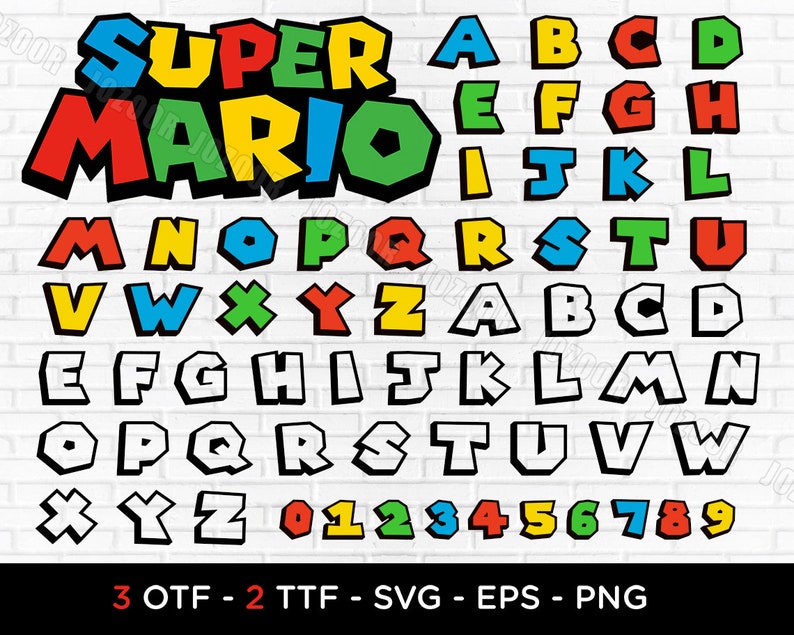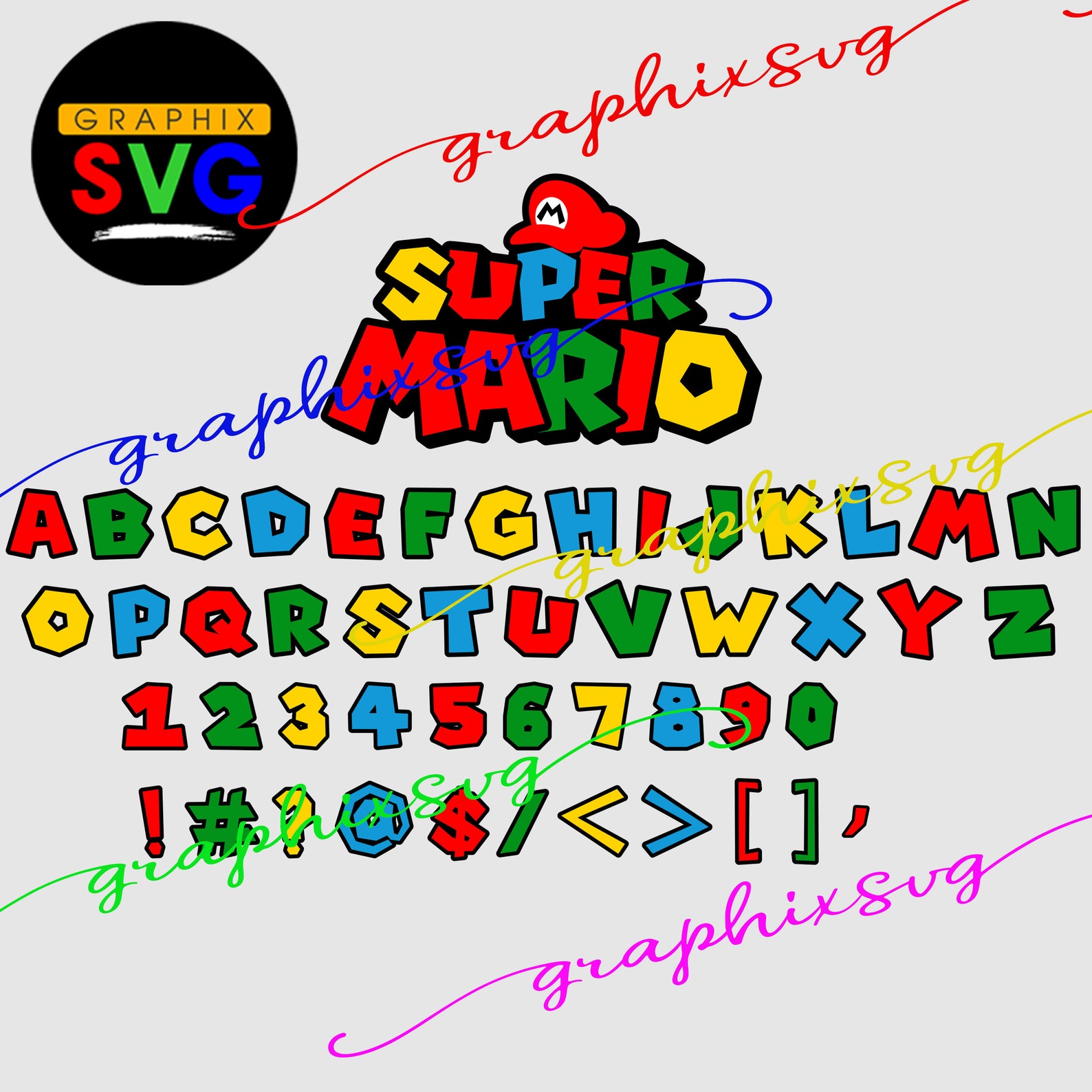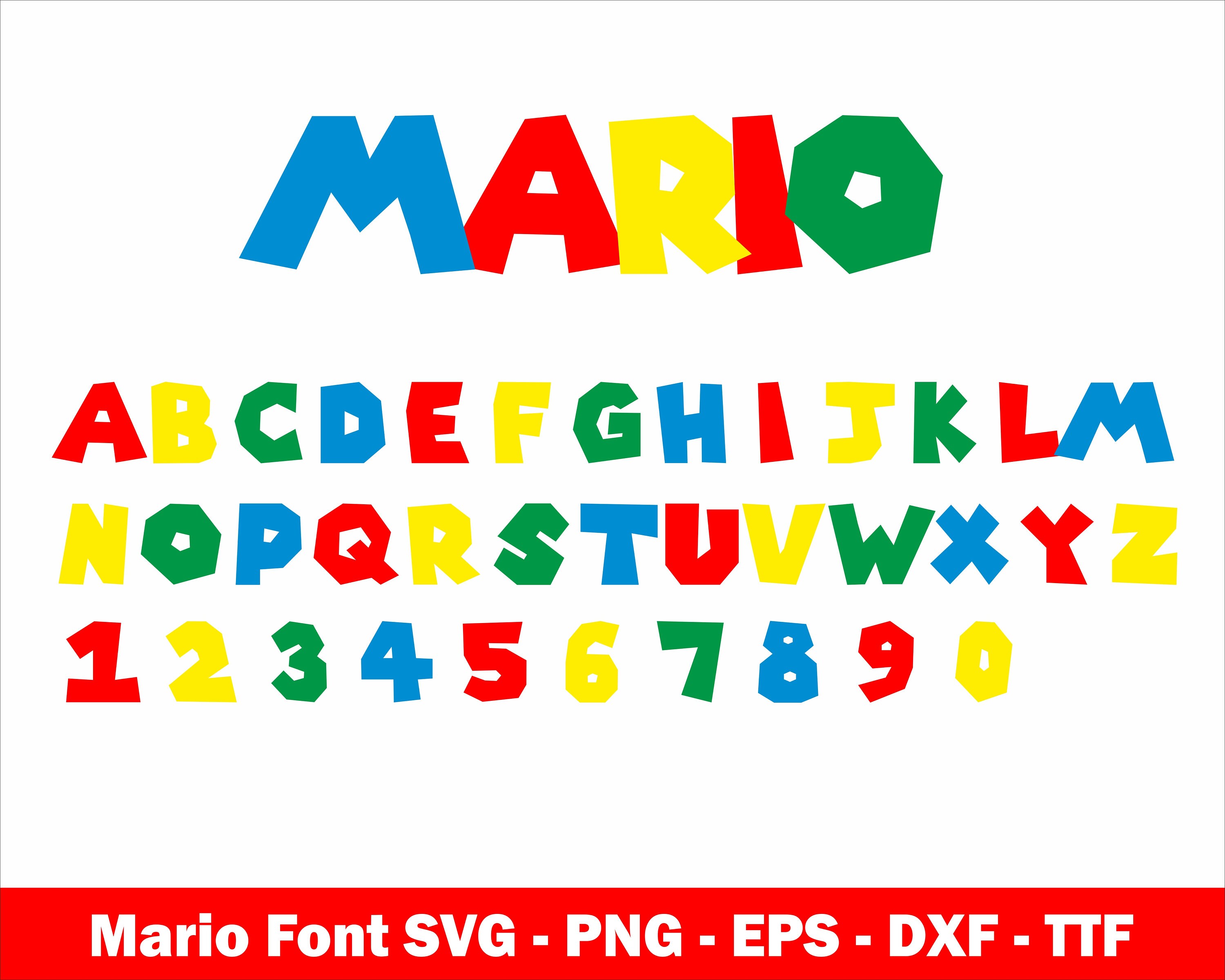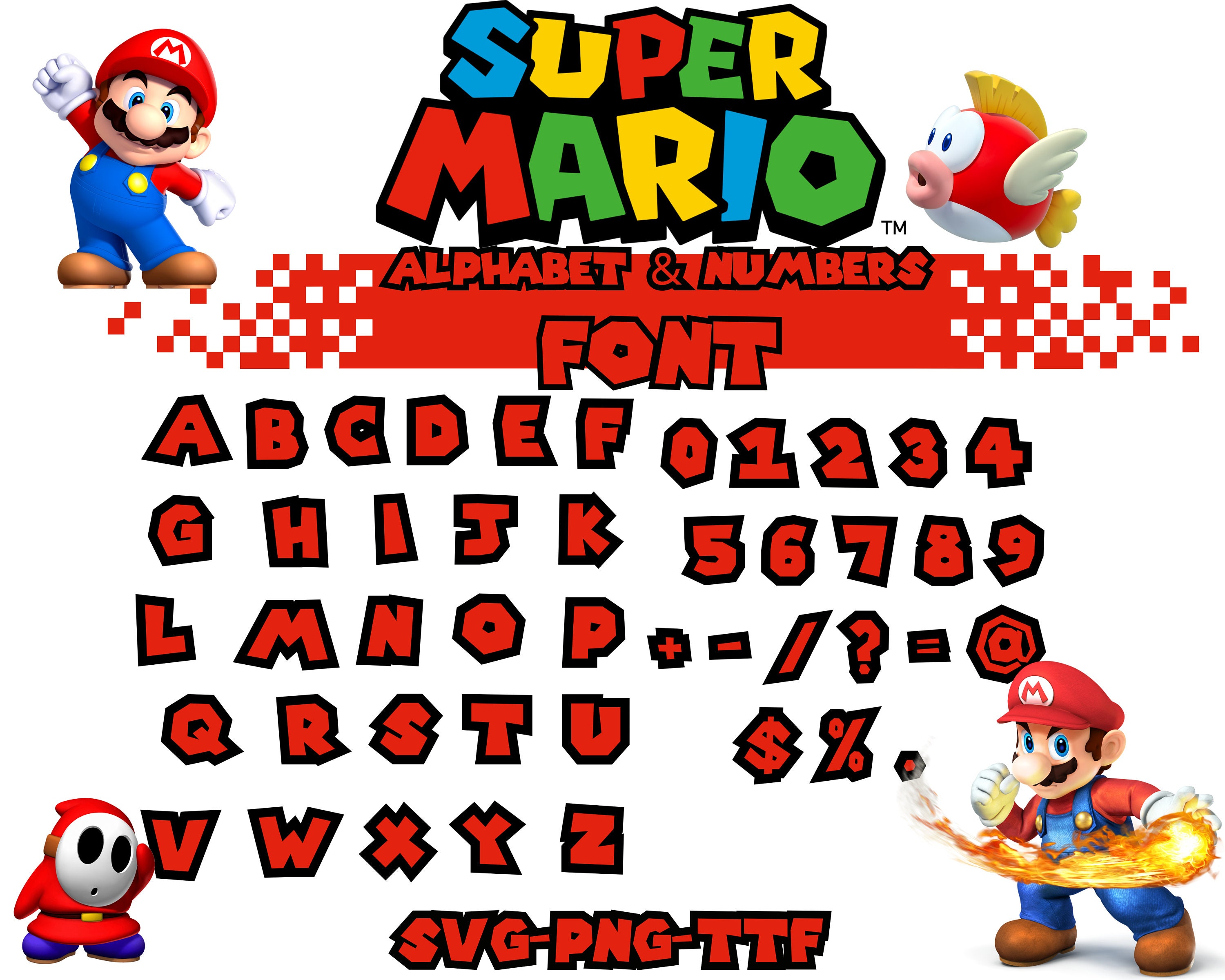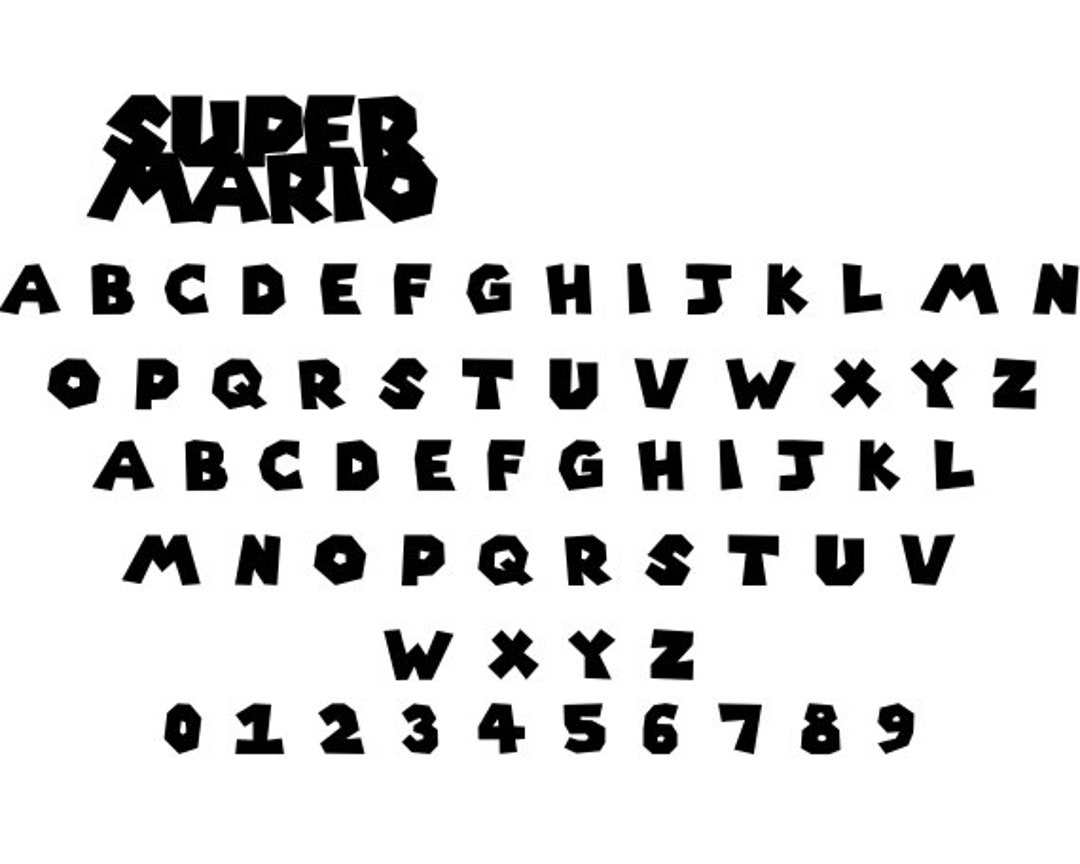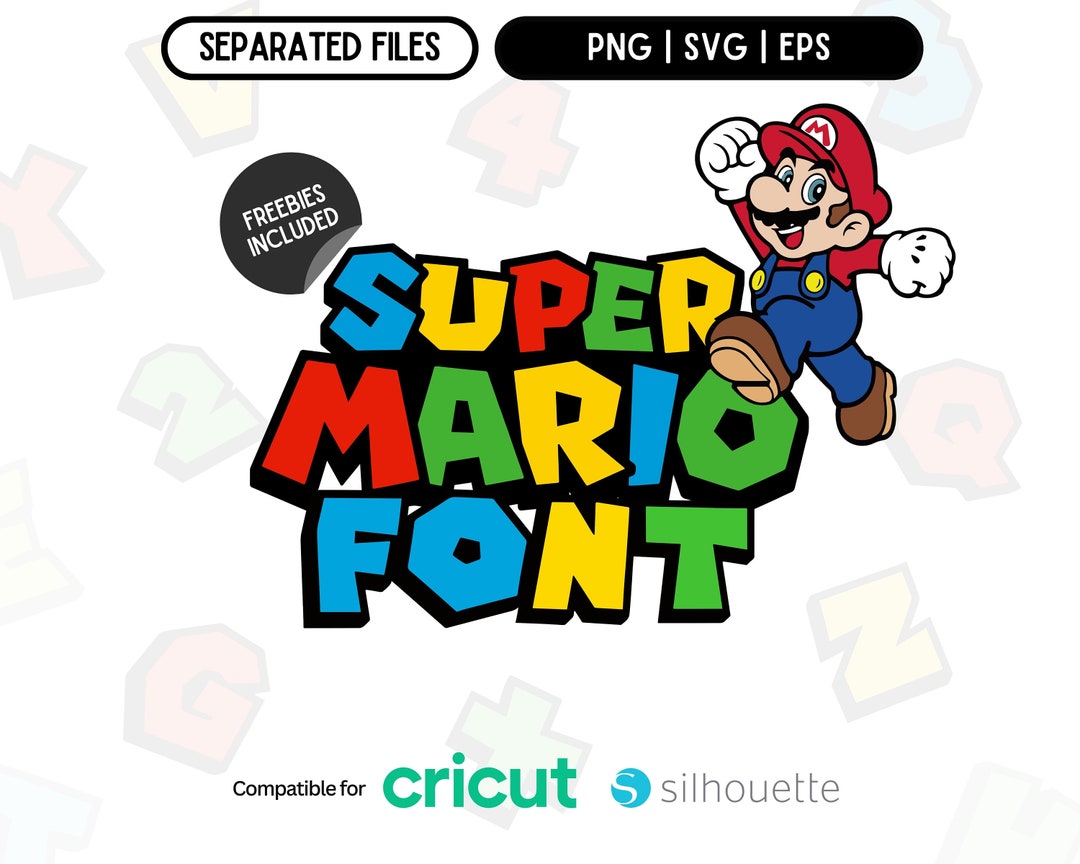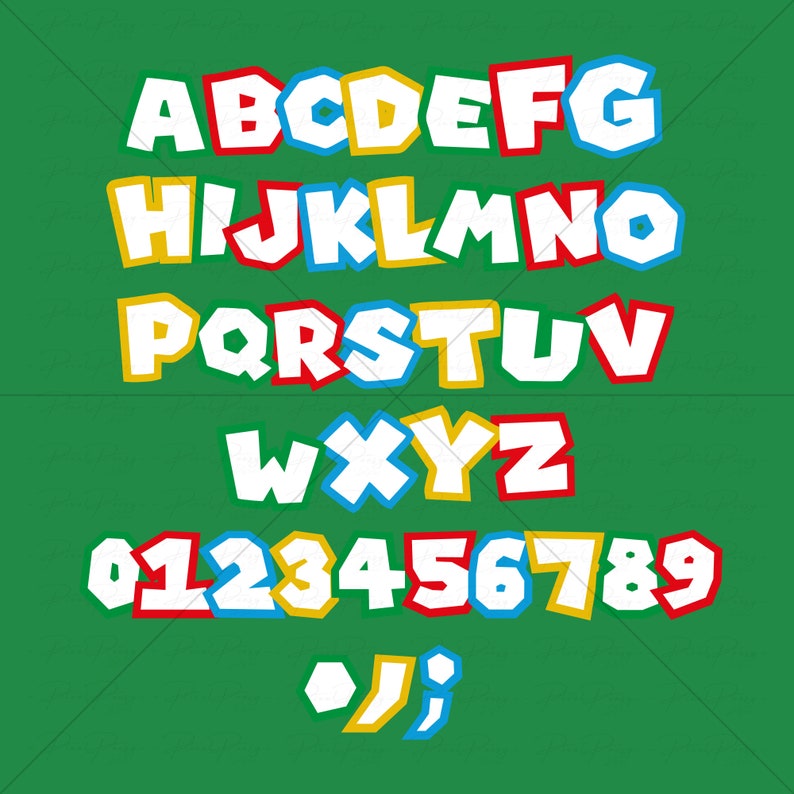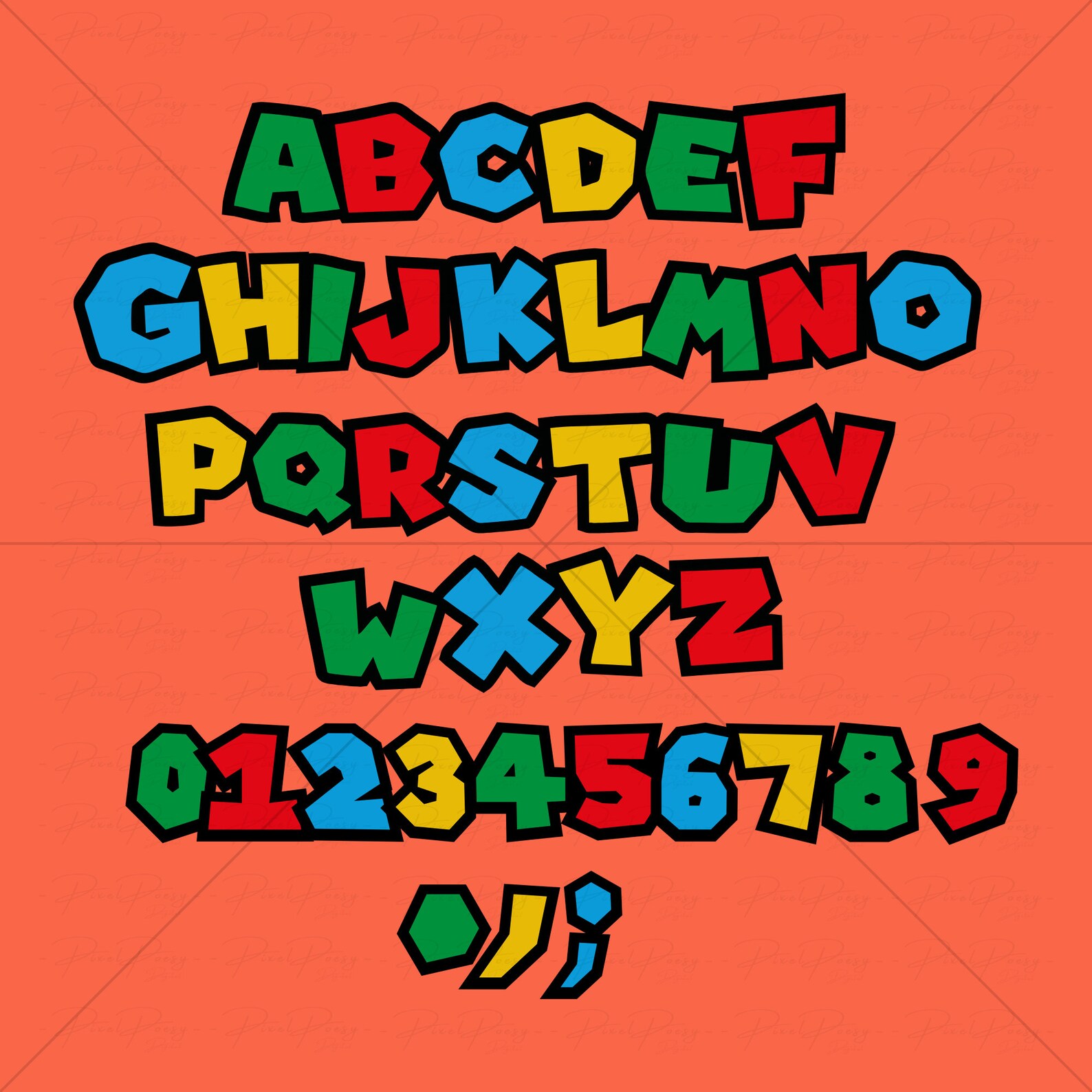
What Is The Mario Font Called . The font in its current form was officially introduced with the release of super mario 3d land in 2011 and has since become the. You can download the font for free Super mario 256 by fsuarez913. It is a caps only font with numerals and limited punctuation marks. This file is found in mario tennis: 3,618,207 downloads (1,058 yesterday) 52 comments 100% free. The ui (time and score) and logo font in most super mario series. These include the super mario 256 font which is used in the logo of super mario. Mario world, the font file is. Ultra smash, and again is used in super mario run. The lettering for the super mario logo is very similar to a font named super mario 256 by fsuarez913. A typeface of unknown name, found in most modern mario games. My first font, almost an.
It is a caps only font with numerals and limited punctuation marks. The ui (time and score) and logo font in most super mario series. My first font, almost an. Super mario 256 by fsuarez913. These include the super mario 256 font which is used in the logo of super mario. The font in its current form was officially introduced with the release of super mario 3d land in 2011 and has since become the. This file is found in mario tennis: You can download the font for free The lettering for the super mario logo is very similar to a font named super mario 256 by fsuarez913. Ultra smash, and again is used in super mario run.
What Is The Mario Font Called Ultra smash, and again is used in super mario run. You can download the font for free A typeface of unknown name, found in most modern mario games. Ultra smash, and again is used in super mario run. These include the super mario 256 font which is used in the logo of super mario. Mario world, the font file is. My first font, almost an. The lettering for the super mario logo is very similar to a font named super mario 256 by fsuarez913. The font in its current form was officially introduced with the release of super mario 3d land in 2011 and has since become the. This file is found in mario tennis: It is a caps only font with numerals and limited punctuation marks. 3,618,207 downloads (1,058 yesterday) 52 comments 100% free. The ui (time and score) and logo font in most super mario series. Super mario 256 by fsuarez913.
Mario Font Svg Mario Alphabet SVG Mario Svg Png Eps TTF Font Etsy Canada What Is The Mario Font Called The ui (time and score) and logo font in most super mario series. My first font, almost an. These include the super mario 256 font which is used in the logo of super mario. A typeface of unknown name, found in most modern mario games. The lettering for the super mario logo is very similar to a font named super. What Is The Mario Font Called.
Mario Font, Mario Letters, Mario numbers, Mario Inspire What Is The Mario Font Called The font in its current form was officially introduced with the release of super mario 3d land in 2011 and has since become the. Ultra smash, and again is used in super mario run. Mario world, the font file is. The ui (time and score) and logo font in most super mario series. You can download the font for free. What Is The Mario Font Called.
Mario Free, Mario Bros., Mario Party, Super Mario, School Year Themes What Is The Mario Font Called It is a caps only font with numerals and limited punctuation marks. These include the super mario 256 font which is used in the logo of super mario. Ultra smash, and again is used in super mario run. Super mario 256 by fsuarez913. 3,618,207 downloads (1,058 yesterday) 52 comments 100% free. The font in its current form was officially introduced. What Is The Mario Font Called.
Super Mario Font Fonts Hut What Is The Mario Font Called Ultra smash, and again is used in super mario run. You can download the font for free Super mario 256 by fsuarez913. The font in its current form was officially introduced with the release of super mario 3d land in 2011 and has since become the. The lettering for the super mario logo is very similar to a font named. What Is The Mario Font Called.
Super Mario free Font What Font Is What Is The Mario Font Called 3,618,207 downloads (1,058 yesterday) 52 comments 100% free. Mario world, the font file is. Ultra smash, and again is used in super mario run. A typeface of unknown name, found in most modern mario games. You can download the font for free These include the super mario 256 font which is used in the logo of super mario. The ui. What Is The Mario Font Called.
Super Mario Font by PuzzlyPiece on DeviantArt What Is The Mario Font Called The font in its current form was officially introduced with the release of super mario 3d land in 2011 and has since become the. 3,618,207 downloads (1,058 yesterday) 52 comments 100% free. It is a caps only font with numerals and limited punctuation marks. This file is found in mario tennis: Ultra smash, and again is used in super mario. What Is The Mario Font Called.
New Super Mario Font U font What Is The Mario Font Called It is a caps only font with numerals and limited punctuation marks. 3,618,207 downloads (1,058 yesterday) 52 comments 100% free. The lettering for the super mario logo is very similar to a font named super mario 256 by fsuarez913. This file is found in mario tennis: Ultra smash, and again is used in super mario run. A typeface of unknown. What Is The Mario Font Called.
Super Mario Font Svg, Super Mario Font And Numbers Svg Instant Download What Is The Mario Font Called You can download the font for free The lettering for the super mario logo is very similar to a font named super mario 256 by fsuarez913. The font in its current form was officially introduced with the release of super mario 3d land in 2011 and has since become the. These include the super mario 256 font which is used. What Is The Mario Font Called.
Super Mario Font Svg Mario Alphabet Svg Files Super Mario Etsy New What Is The Mario Font Called This file is found in mario tennis: The font in its current form was officially introduced with the release of super mario 3d land in 2011 and has since become the. It is a caps only font with numerals and limited punctuation marks. Super mario 256 by fsuarez913. These include the super mario 256 font which is used in the. What Is The Mario Font Called.